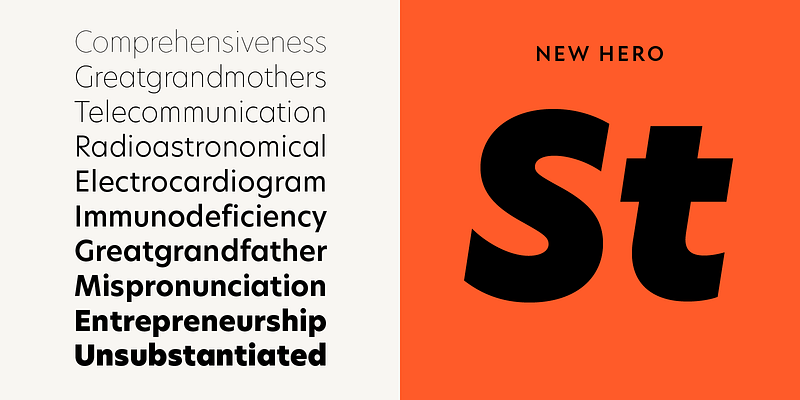
New Hero Font Free Download is a bold, modern sans-serif typeface designed to make a strong impression. Featuring clean lines, geometric shapes, and a distinctive style, this font is perfect for projects that require a powerful and professional look, such as branding, logos, headlines, and advertisements.
New Hero Font Free Download offers excellent legibility and a sleek design, making it versatile for both large-scale display text and smaller body text. Its contemporary feel and strong visual presence make it ideal for tech-related designs, modern advertising, or any project that needs a confident, impactful typographic choice.
Whether you're working on a corporate brand, a website, or an event campaign, New Hero will elevate your typography with its bold and clean design.